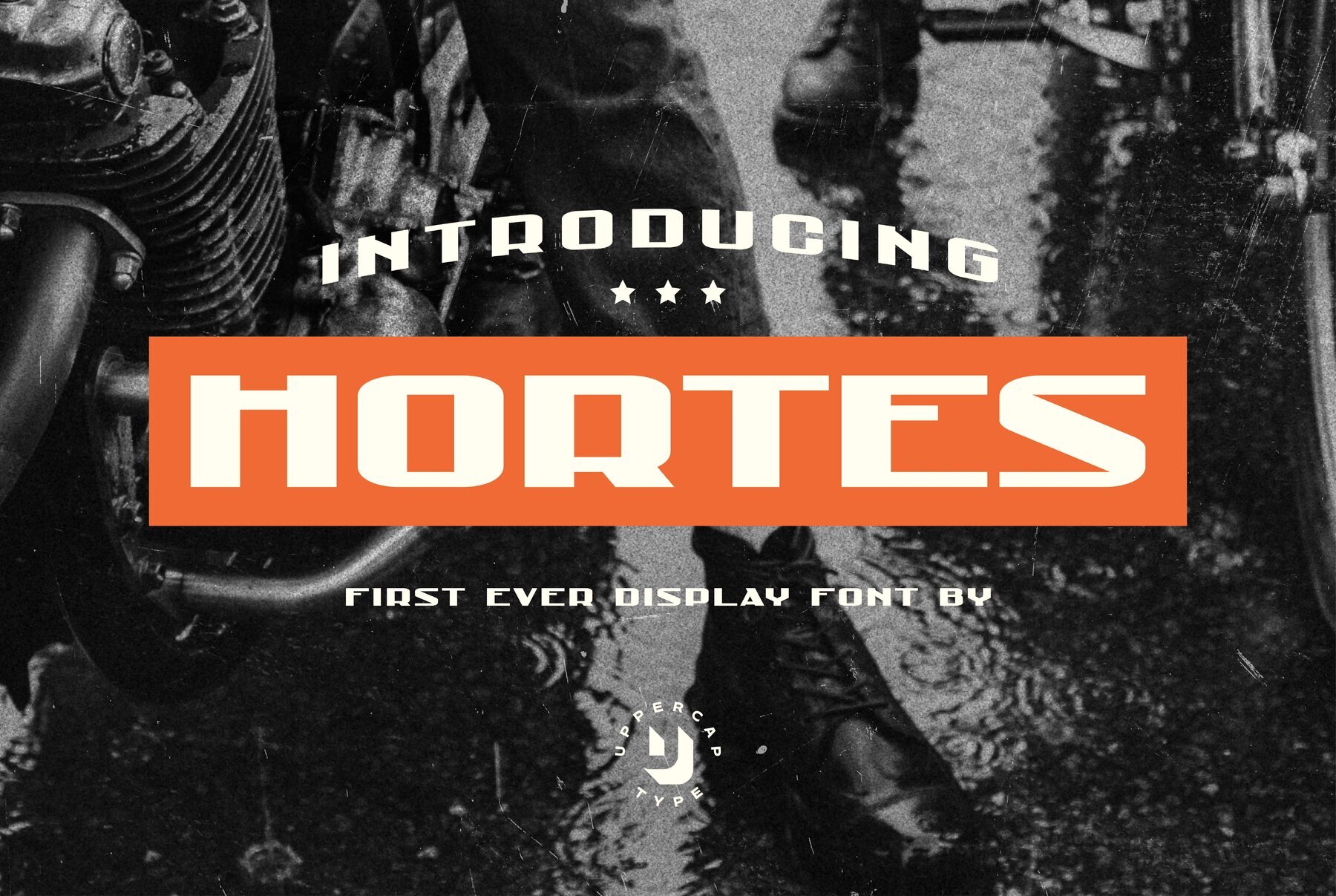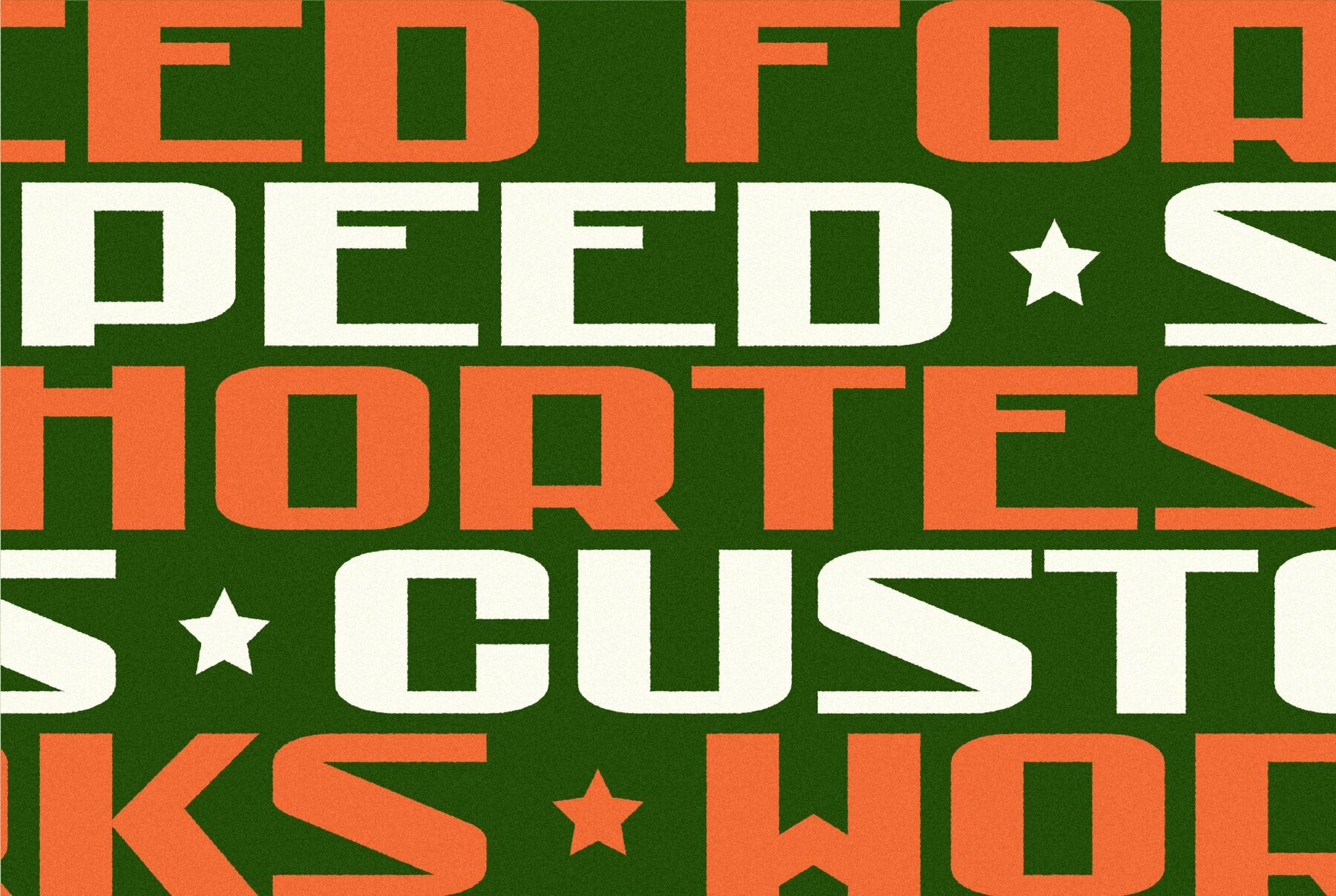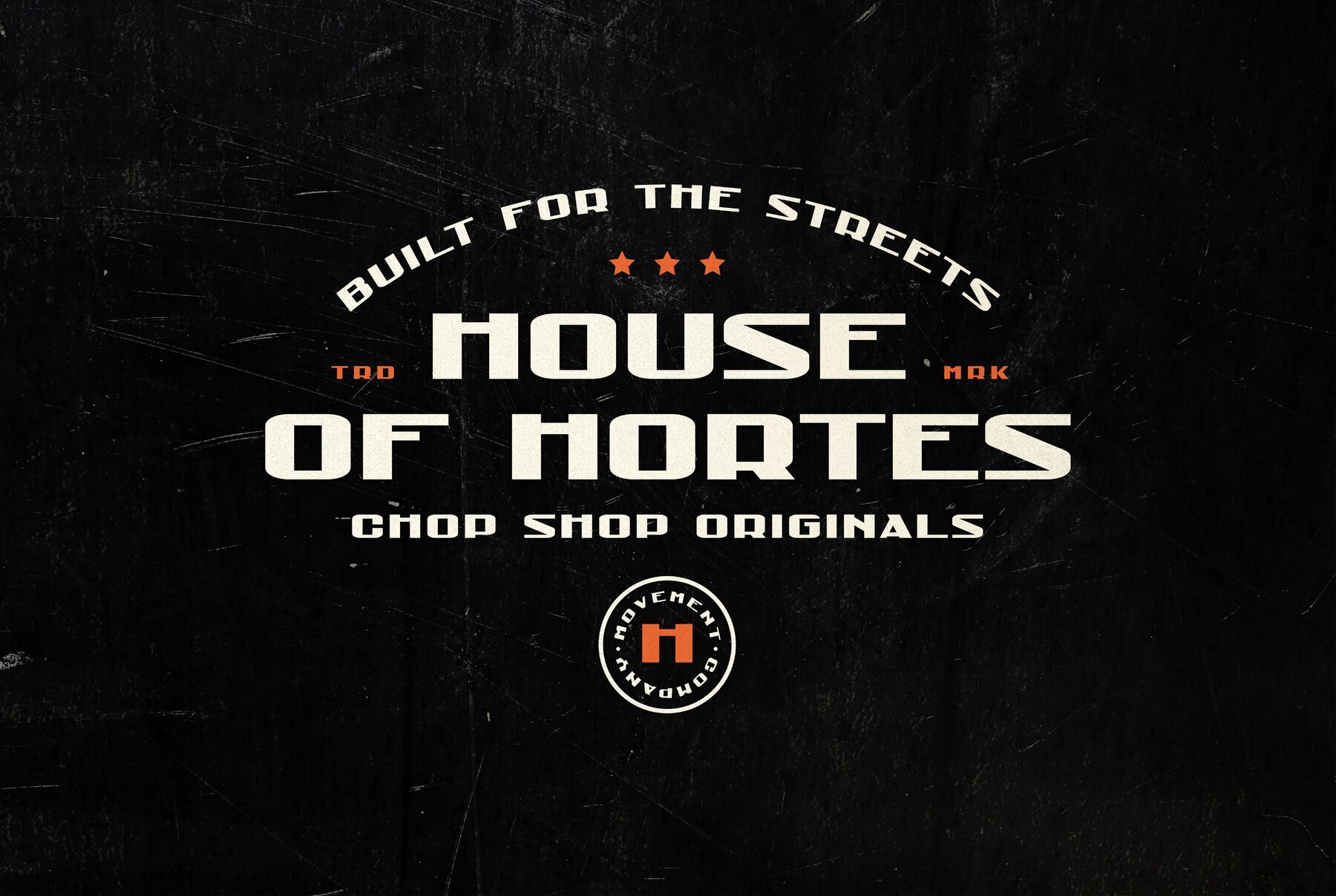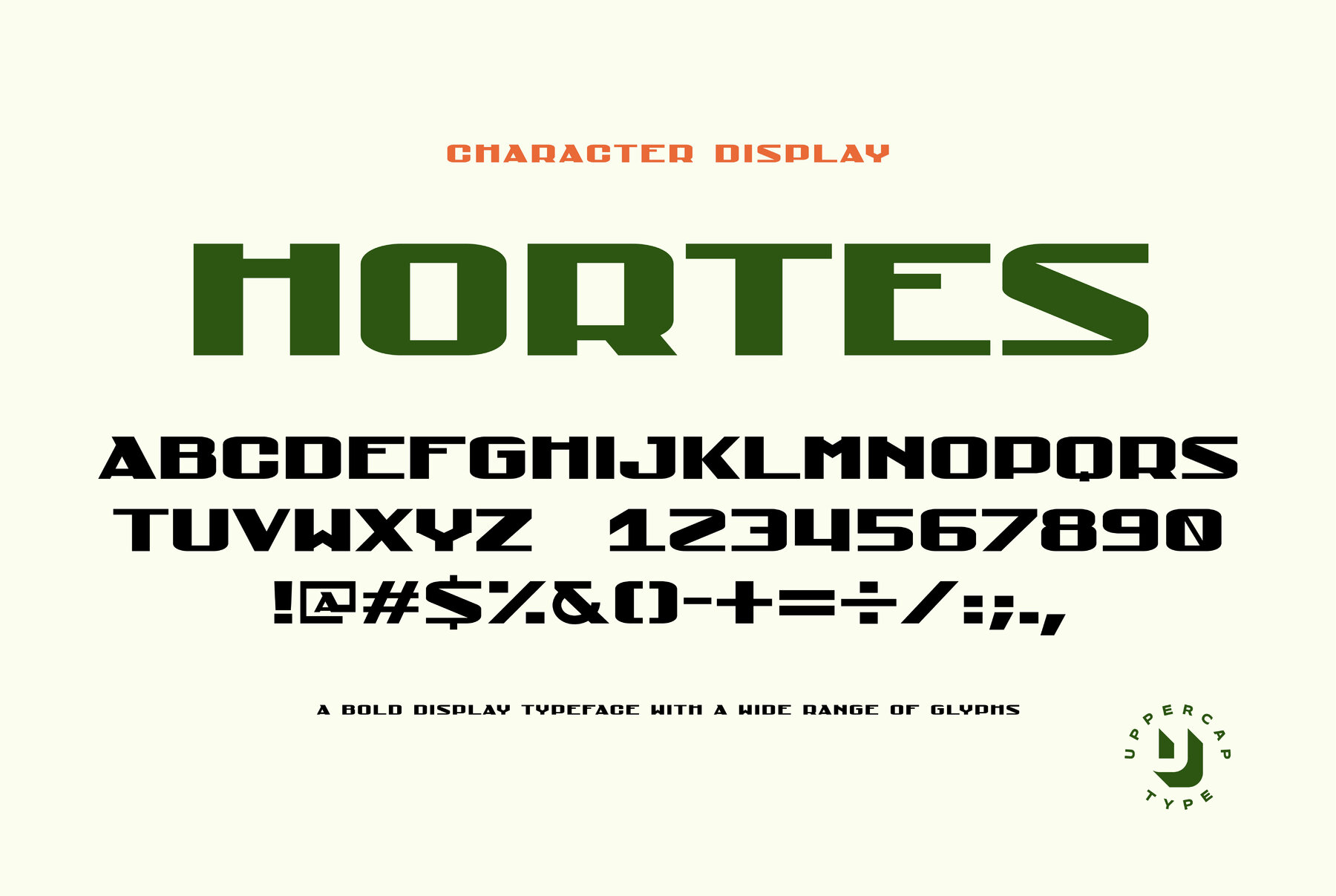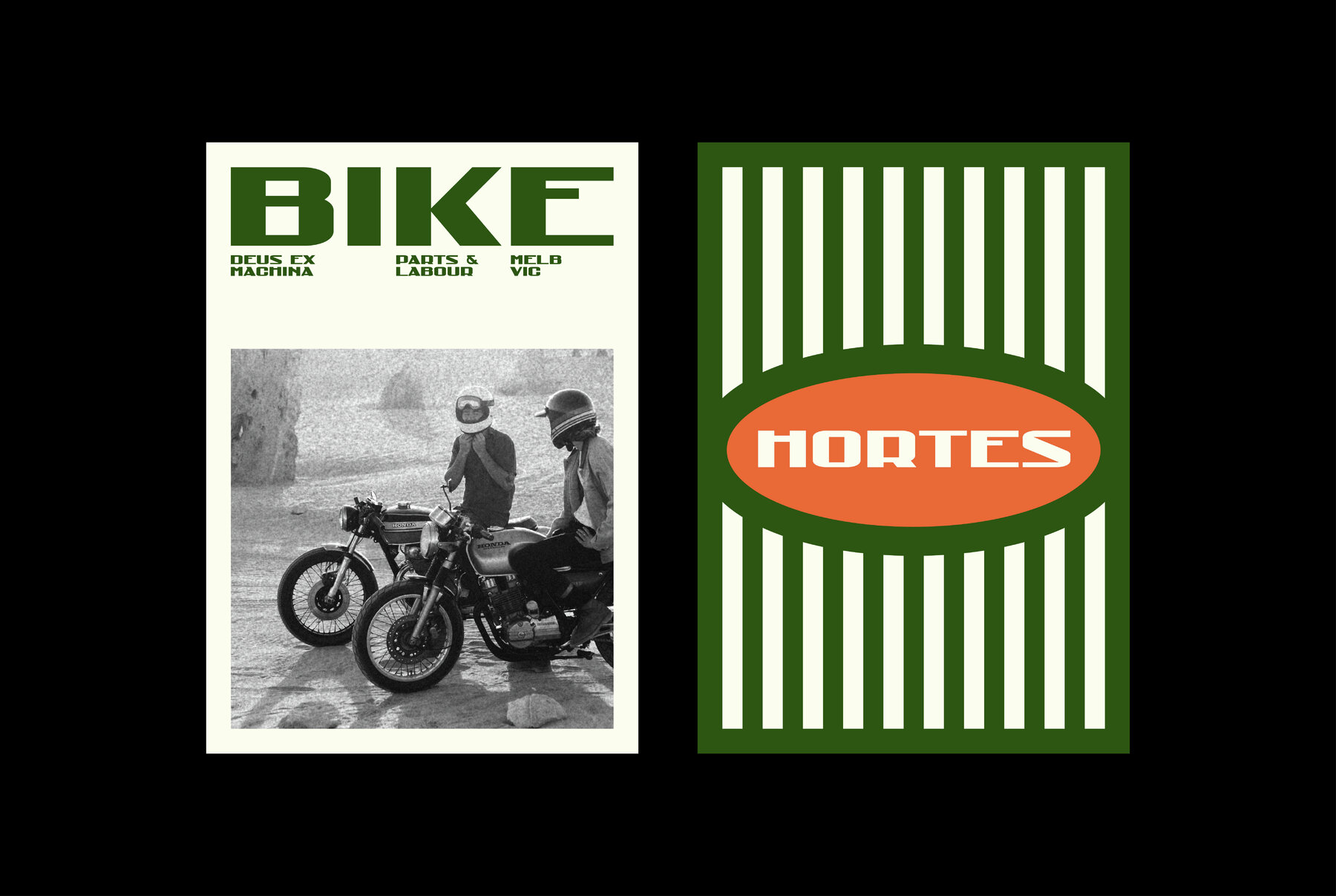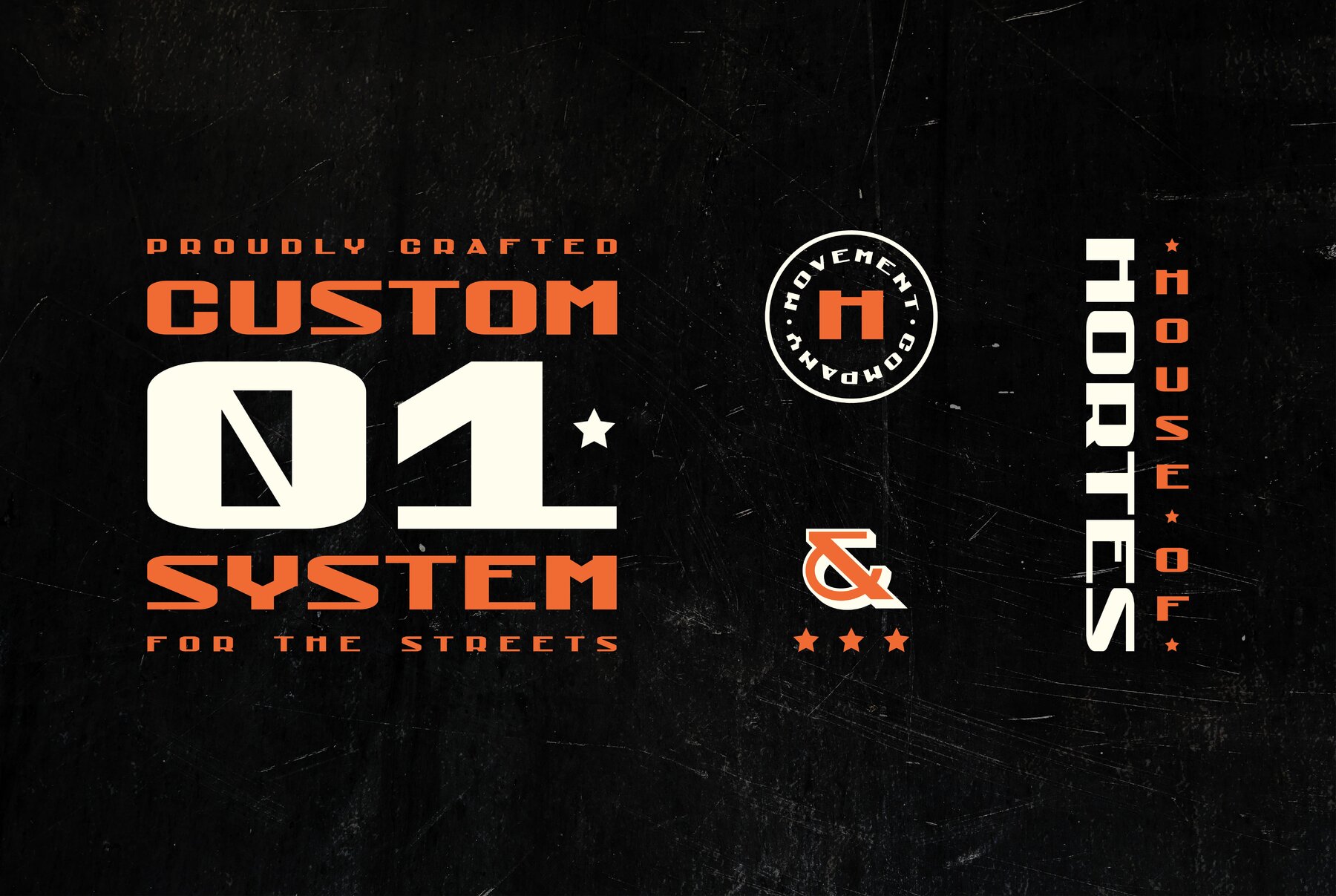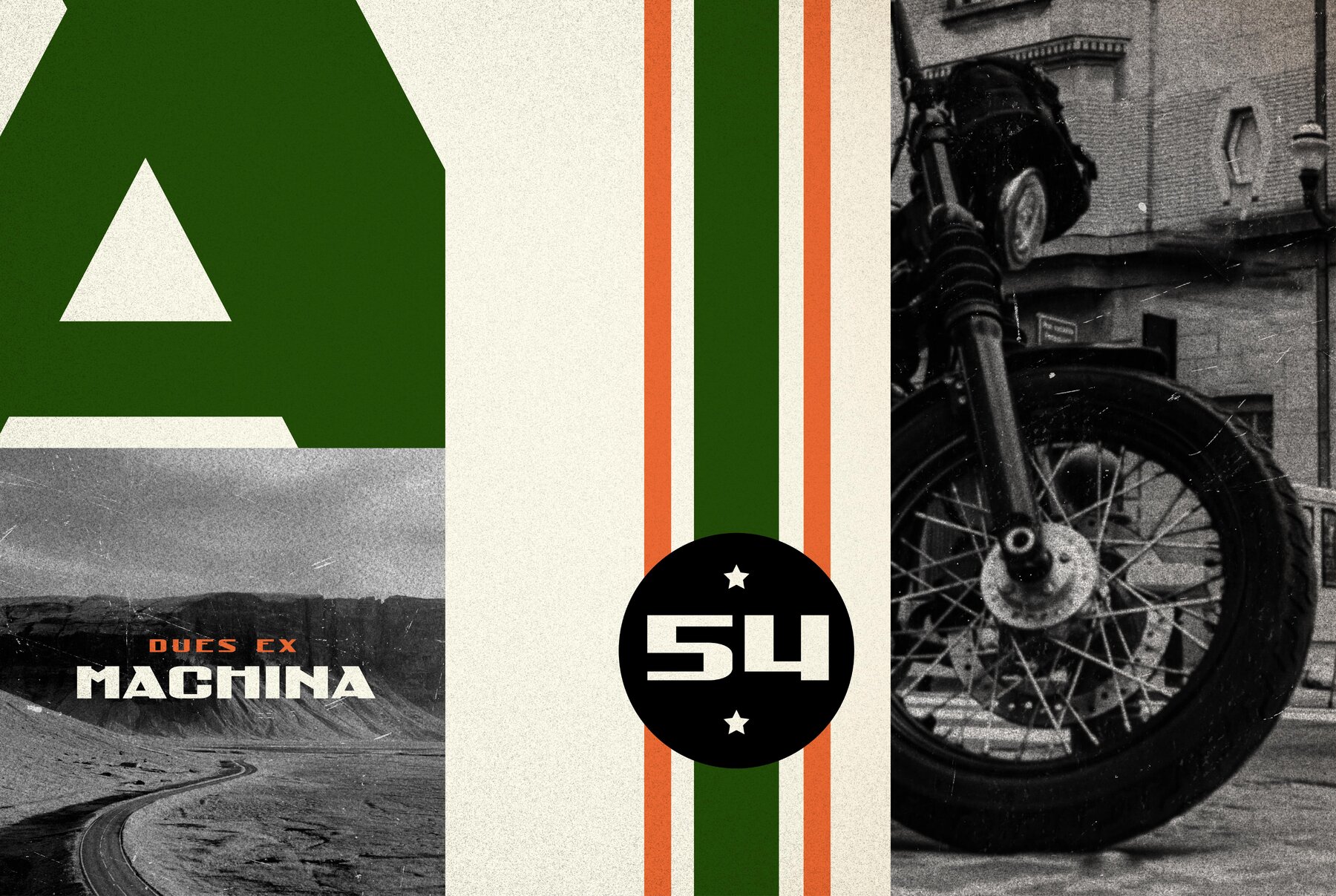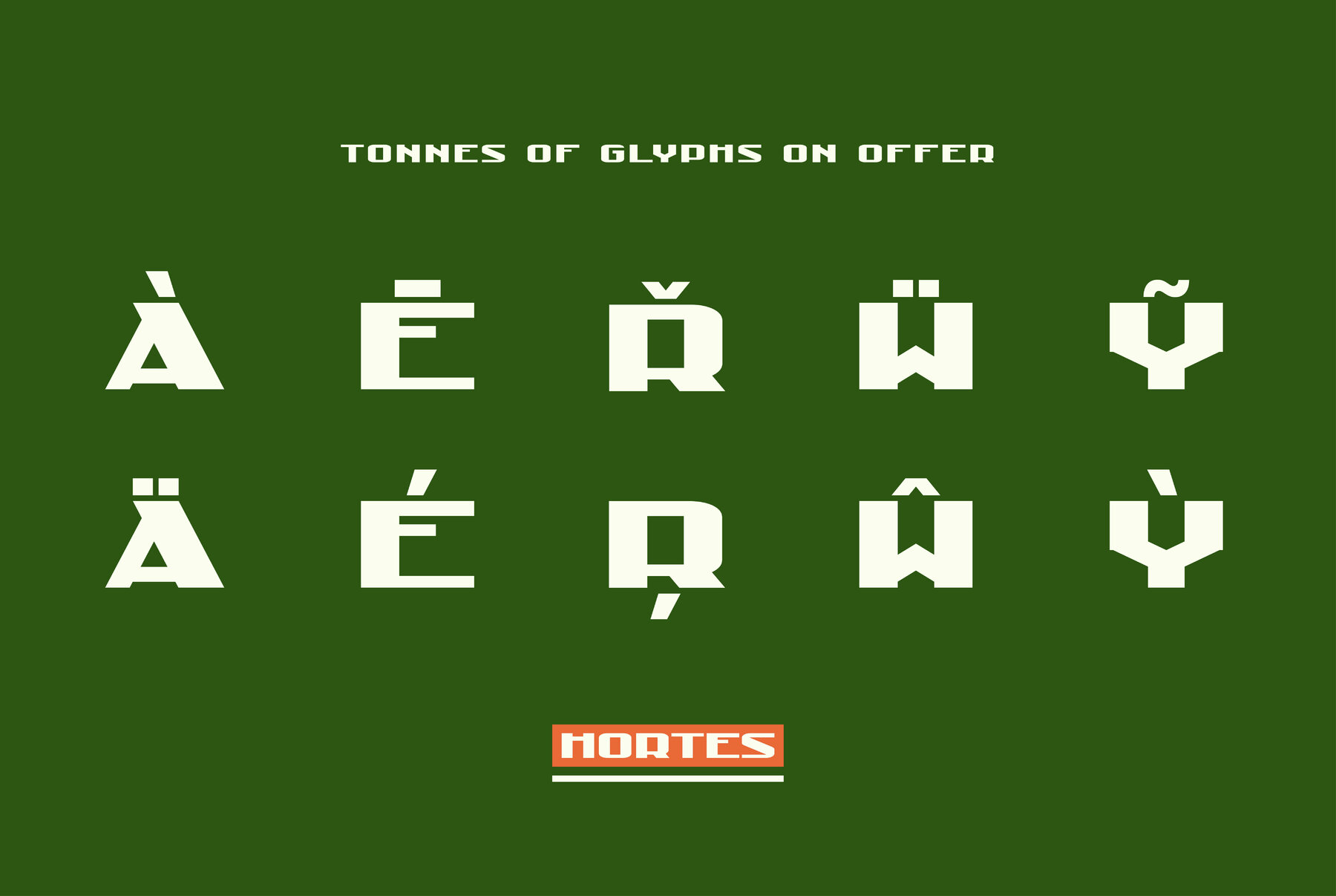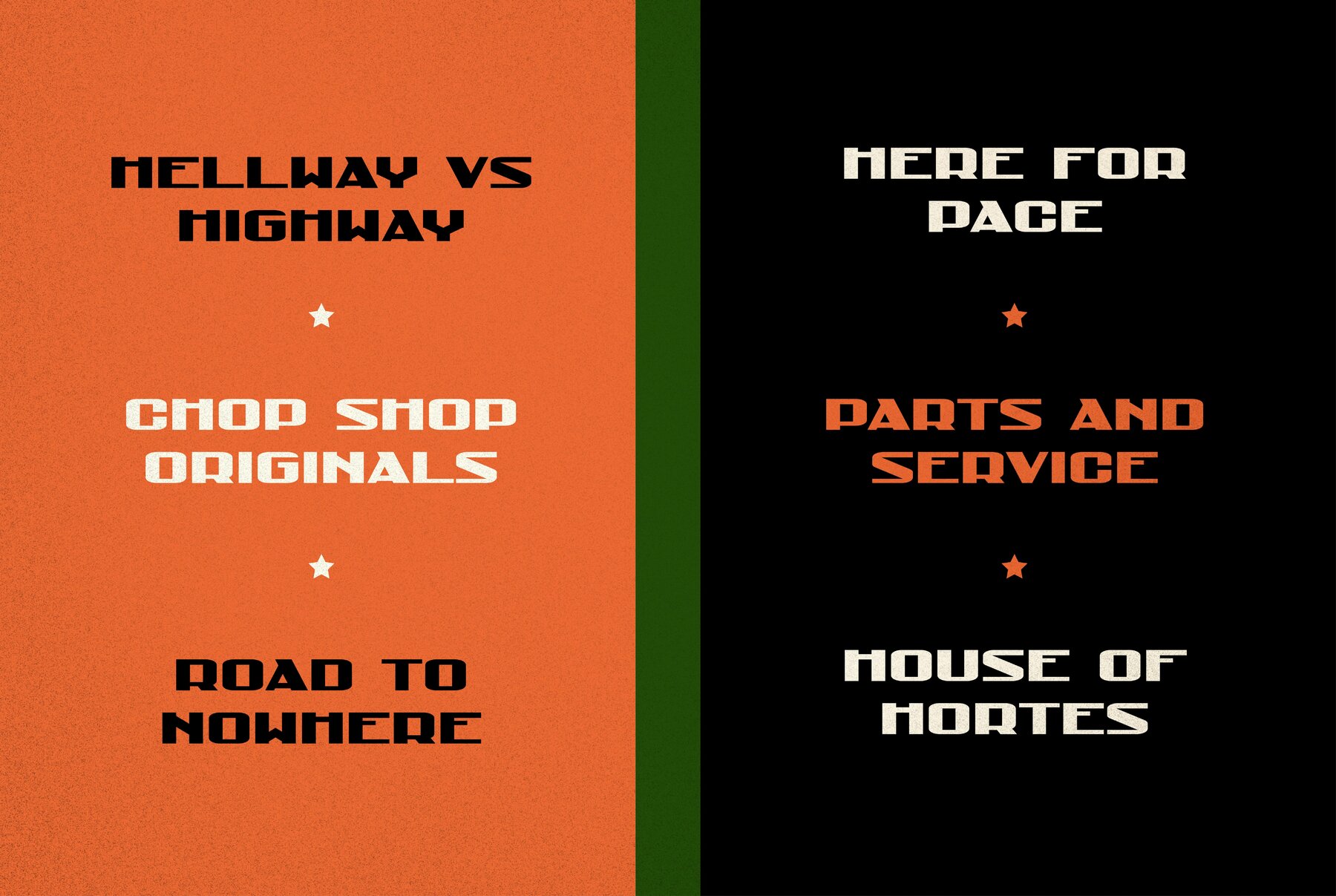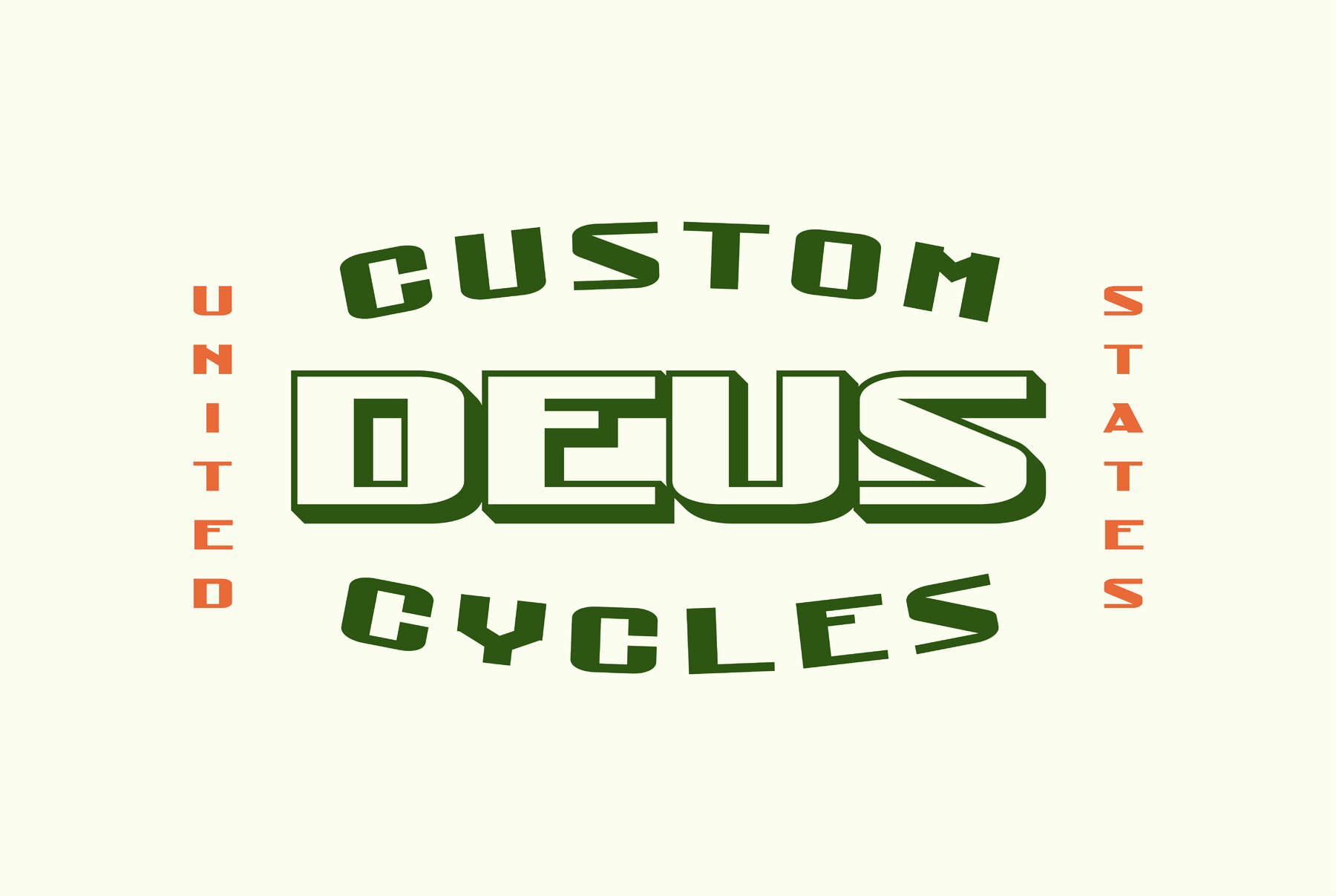
Hortes Font
UT Hortes
Drawing inspiration from the world of vintage motorcycles, the Hortes font brings an all-caps sans serif style with striking contrast to your design toolkit. Ideally suited for posters, apparel, type badges, and logos, this typeface uniquely captures a sense of rugged elegance.High Contrast Sans Serif: Hortes